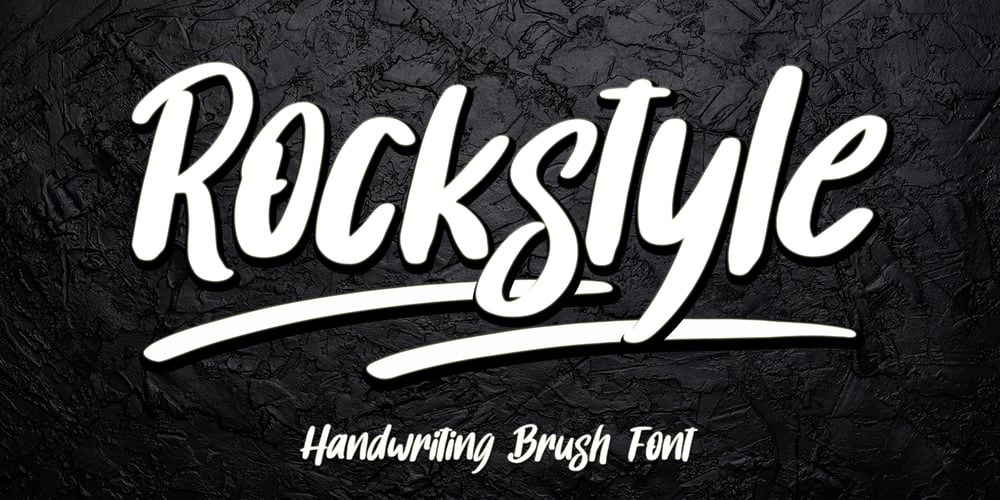
Rockstyle Font Family was designed by Ahmad Afandi and published by Letterafandi Studio. Rockstyle contains 2 styles and family package options. Rockstyle is a natural, dry brush display font. It is a tough-looking font with a strong brush touch, ready to rock every design you are willing to create. It’s perfect for logos, quotes, posters, clothing, and so much more!